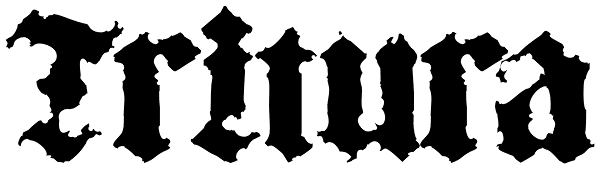
Tritura
Tritura is my personal take on textura fonts. Several methods of drawing were used, both analog and digital, to bring its overall rough feel. Each and every character was designed not from historical references, but from my view on this very...
Tritura